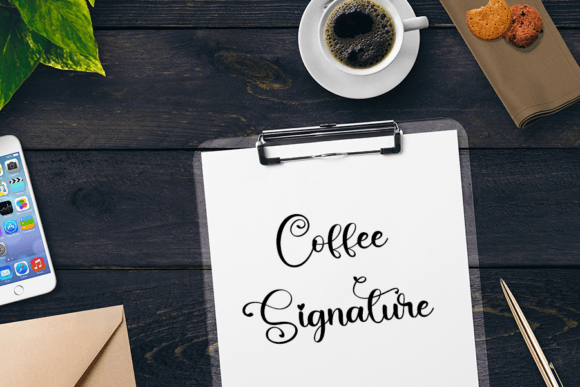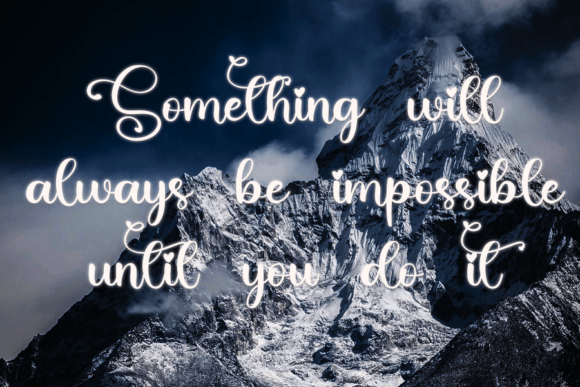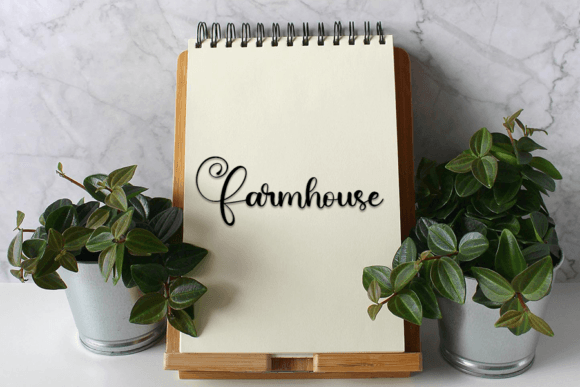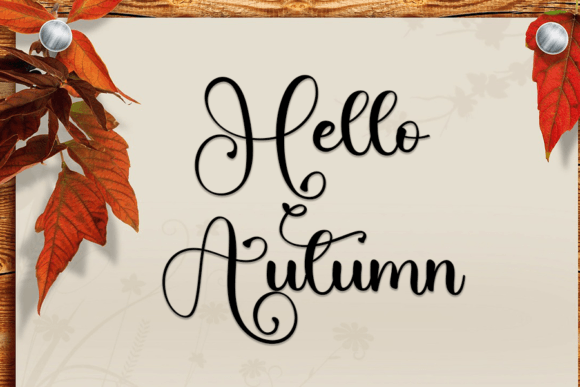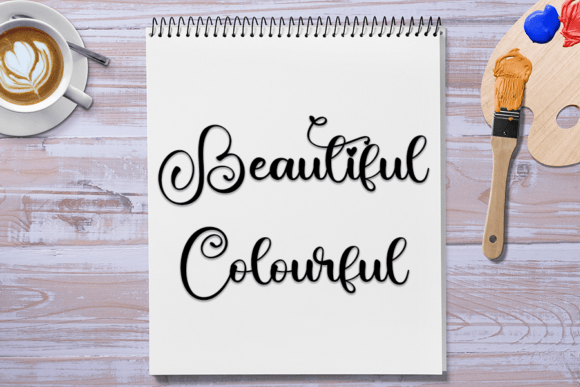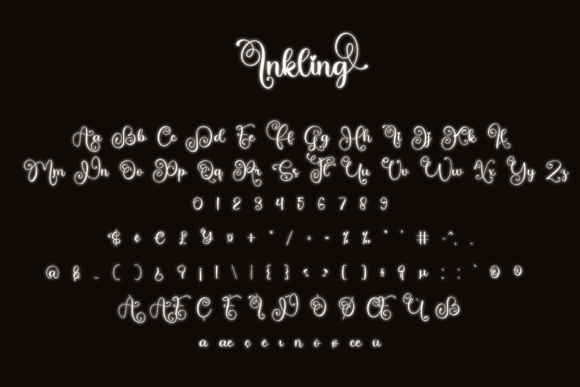
Introduction to Inkling Font
Inkling is a cool handwritten script font with a modern vibe and spotless form, inspired by classic calligraphy.
Not too thin and not too thick, balanced and varied, this font was designed to enhance the beauty of your projects .